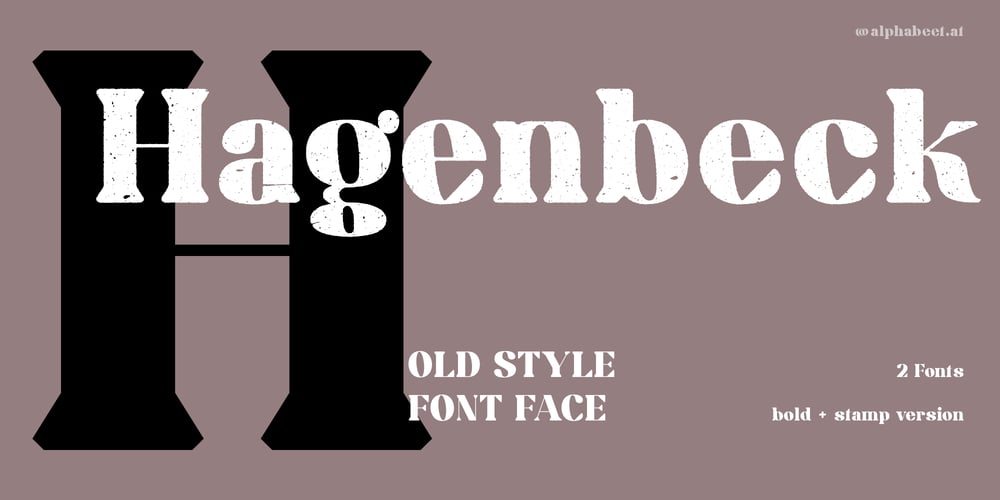
Hagenbeck
Hagenbeck font
Hagenbeck Font Family was designed by Florian Kriegner and published by alphabeet.at. Hagenbeck contains 2 styles and family package options. Hagenbeck is an old style font face with the intention to get really bold. It’s a design from 2019, drawn during a rainy stay in the eponymous district in Hamburg, the designers ‘hood for a long time. There is the bold weight and a decorative stamped version of this font face.